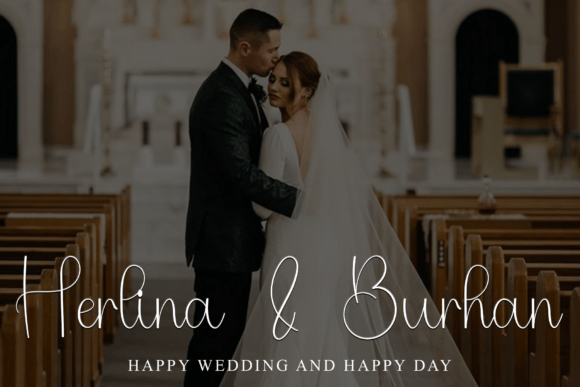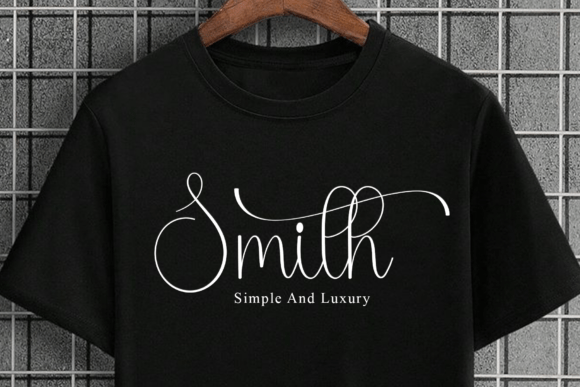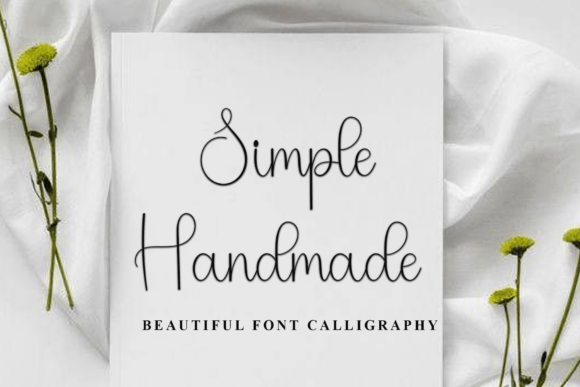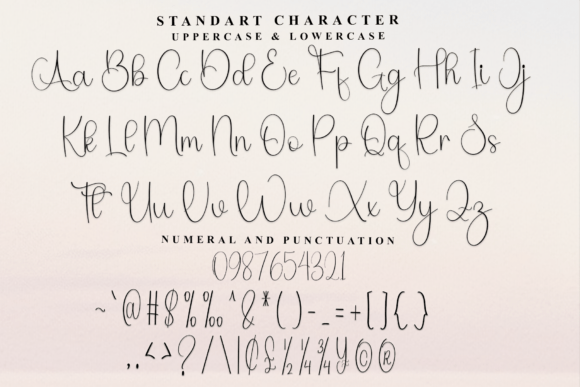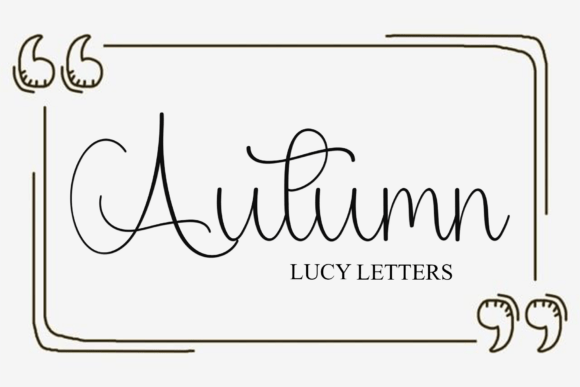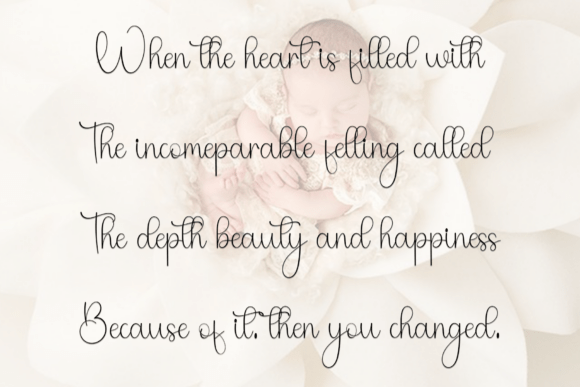
Have you ever been stuck on a design project, pouring over lines of code or wrestling with a stubborn font, only to have a moment of pure creative joy when the perfect typeface finally comes along? That’s exactly what happened to many designers when they discovered the Anithing Writing Font. This casual and creative font is designed to exude warmth and friendliness, making it perfect for personal projects, invitations, and social media graphics.
The Anithing Writing Font’s round, playful strokes create a relaxed and approachable feel that’s sure to captivate your audience. With its charming, hand-drawn aesthetic, this font adds a fun and unique touch to any design. As a designer, you know how valuable it is to have a versatile font that can elevate your projects and leave a lasting impression.
Anithing Writing Font Key Features
- Font Style: Script font with elegant and cursive characteristics, ideal for creative writing and artistic purposes.
- Unique Characteristics: Features a unique, hand-written feel with subtle flourishes and connections between letters, adding a touch of personality to text.
Anithing Writing Font Review
As a designer, I was excited to dive into the Anithing Writing Font and see what it has to offer. Overall, I found it to be a solid, modern font that can add a touch of sophistication to your designs.
- Legibility: Anithing Writing Font is highly legible, making it perfect for body text and long-form content.
- Variety of weights: The font offers a range of weights, from light to bold, allowing for versatility in your designs.
- Modern feel: The font’s sleek and modern design makes it a great choice for contemporary branding and marketing materials.
- Lack of uniqueness: While Anithing Writing Font is well-designed, it doesn’t particularly stand out from other modern fonts on the market.
- No dramatic flair: The font’s design is clean and straightforward, but it may not be the best choice for designs that require a lot of flair or drama.
While Anithing Writing Font may not be the most exciting font out there, it’s a solid choice for designers who want a reliable, modern font that gets the job done. Its legibility and versatility make it a great addition to any design arsenal.
Use Anithing Writing Font for titles and headings to create a visually appealing contrast.
Anithing Writing Font is ideal for:
Designing book covers and titles.
Creating invitations and event materials.
Adding a touch of elegance to digital products and websites.